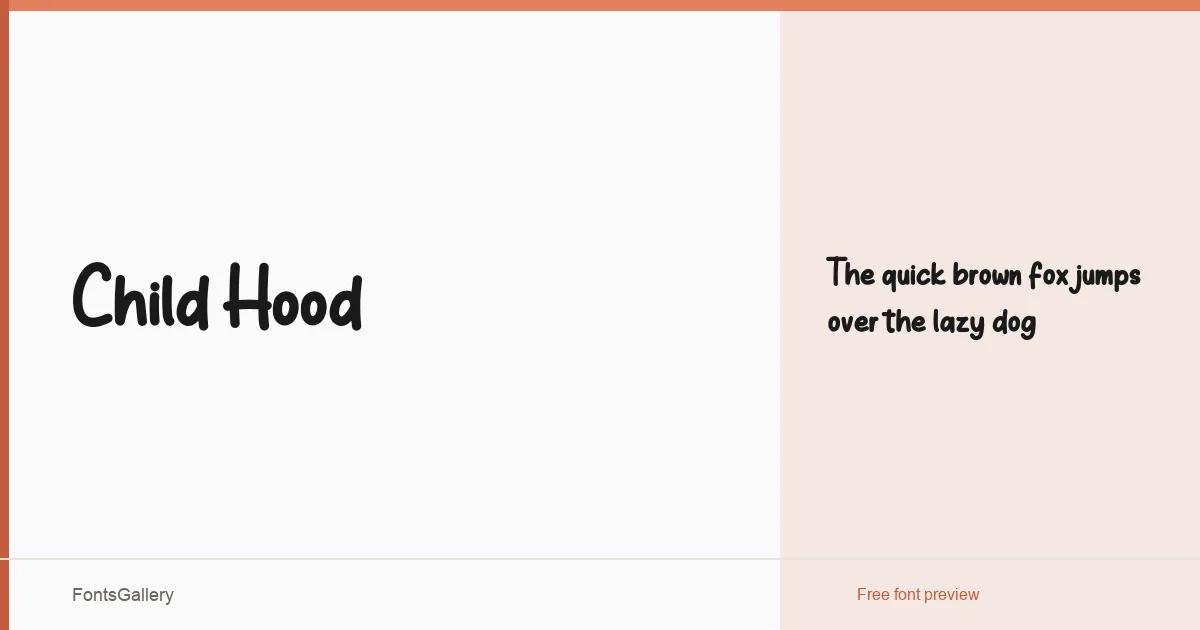
About Child Hood Font
Child Hood is a handwritten typeface crafted by Rahagita Studio, designed to evoke the carefree and imaginative spirit of childhood. Its playful, rustic, and whimsical character gives it an instantly warm and approachable personality. This font brings a sense of hand-drawn authenticity that feels both personal and expressive.
The letterforms of Child Hood reflect a naturally imperfect, handcrafted quality that feels spontaneous and full of life. Its whimsical construction pairs a rustic charm with playful irregularities, giving each character a distinctive, handmade feel. This combination creates a typeface that feels genuinely organic and full of personality.
Child Hood is ideally suited for posters, branding projects, social media graphics, greeting cards, and children's books where a fun and imaginative tone is desired. Its expressive handwritten style makes it especially effective for projects targeting younger audiences or creative, lighthearted brands. For compelling typographic combinations, consider pairing Child Hood with Aresink for a cohesive handcrafted look, or with Helvetica for a clean contrast that lets the display lettering shine.